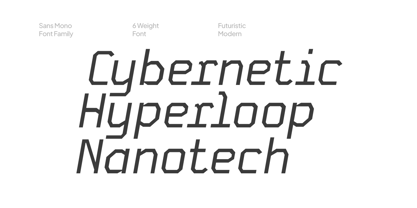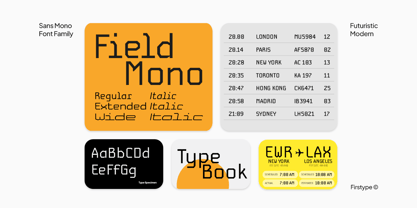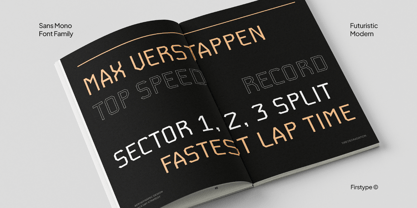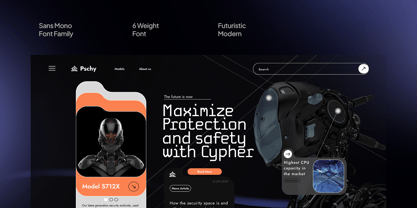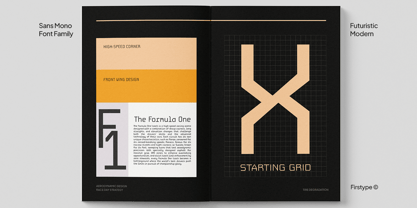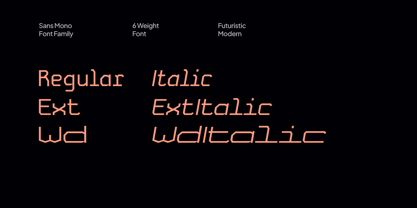
Field Mono
by Firstype Studio
The Field Mono Font Family was designed by Adrian Syauqi and published by Firstype Studio. Field Mono contains 6 styles and family package options. More about this family
Field Mono: A Futuristic and Modern Typeface Field Mono is a cutting-edge monospaced typeface designed for those who appreciate precision, minimalism, and a futuristic aesthetic. With its geometric structure and clean, mechanical forms, Field Mono embodies modernity and technical refinement. Its evenly spaced characters and sharp angles create a sense of order and clarity, making it an ideal choice for contemporary design projects. This typeface seamlessly blends functionality with style, making it highly versatile across both digital and print applications. Whether used in sleek branding, tech-inspired interfaces, or editorial layouts, Field Mono’s structured yet stylish design ensures a high-impact visual presence. Additionally, its monospaced format enhances readability while maintaining a sharp, structured appeal, making it more than just a typeface—it’s a statement of innovation. **Field Mono: Who Is It For?** 🔹 **Tech and Innovation Brands** – Field Mono’s clean, futuristic design is perfect for companies in the technology, AI, and digital industries. It communicates efficiency, progress, and modernity, making it an excellent fit for startups, software brands, and cyber-focused businesses. 🔹 **UI/UX Designers** – The structured and readable nature of Field Mono makes it ideal for digital interfaces, coding environments, and user-friendly web designs. Its sharp, precise letterforms enhance the futuristic feel of apps, dashboards, and websites. 🔹 **Editorial Designers** – Magazines, publications, and portfolios benefit from Field Mono’s modernistic appeal. Its high readability and strong geometric presence add a sophisticated yet innovative edge to print and digital layouts. 🔹 **Gaming and Sci-Fi Creatives** – With its technical and futuristic aesthetic, Field Mono is perfect for sci-fi-themed branding, gaming interfaces, and immersive digital experiences. It adds a cybernetic, high-tech feel to any project. 🔹 **Minimalist and Modern Design Enthusiasts** – Designers who appreciate clean lines, simplicity, and structured layouts will find Field Mono to be a perfect fit. Its monospaced design ensures a consistent, polished look across various applications.
Designers: Adrian Syauqi
Foundry: Firstype Studio